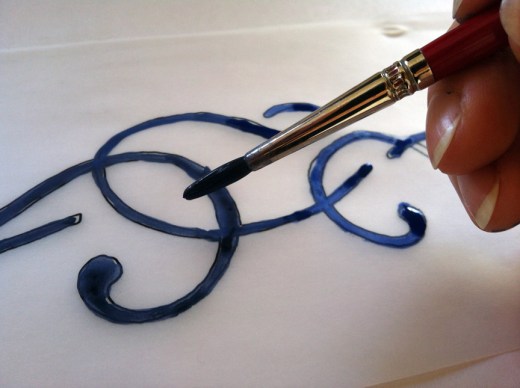
‘Mine’ by Sarah Hyndman
“When thinking about creative London, one of the things that springs to mind is all the body art to be seen, in so many different styles and created by very (and occasionally not so) talented artists. This piece references tattoo influenced lettering and is drawn and painted by hand.”
“The typeface is based on Fette Fraktur which was designed by German punchcutter Johann Christian Bauer in 1850. The flourishes are from Dallaince designed by Frank Heine in 2000.”
‘Mine’ by Sarah Hyndman will be displayed at Type Tasting with the London Design Festival 2013 at the V&A.